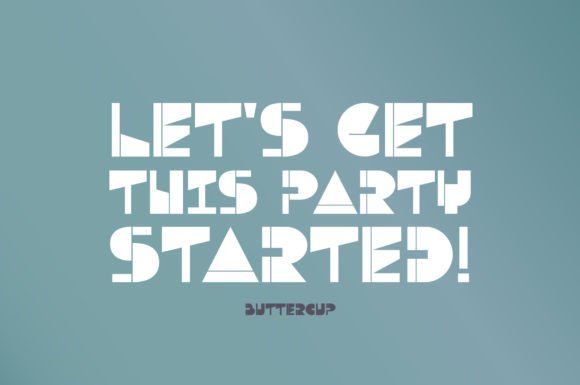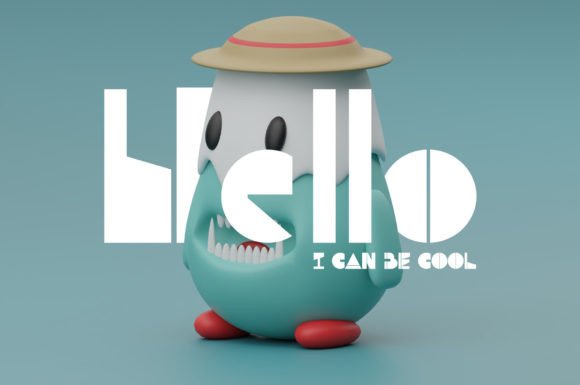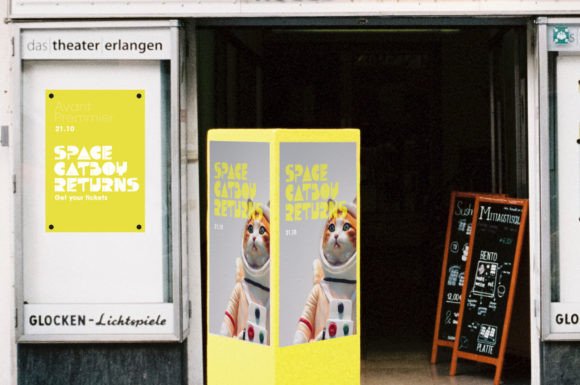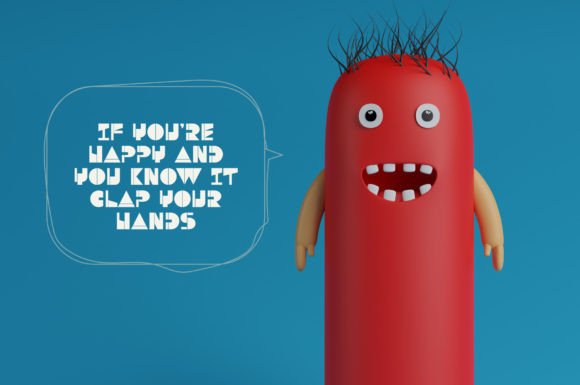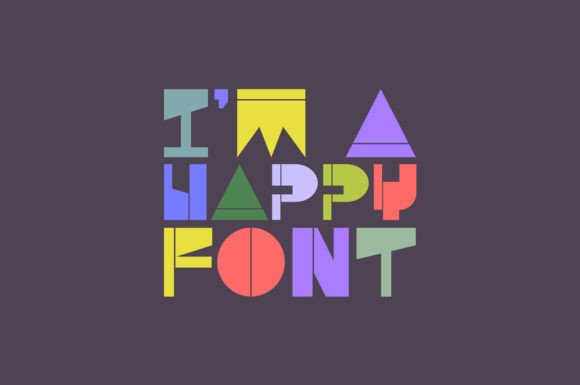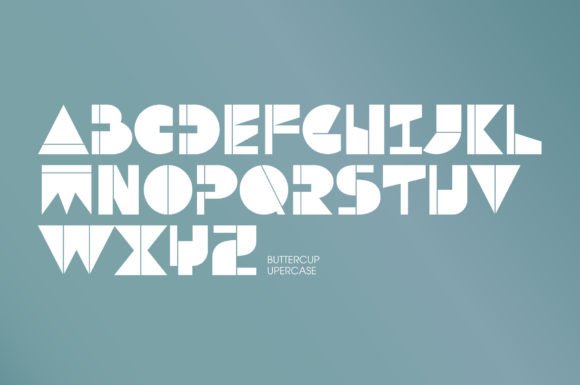
The Quest for the Perfect Fun Font: Discovering Buttercup
I’ll never forget the time I was working on a project for a children’s toy brand. I had the design concept nailed, but I was struggling to find the right font to bring it all together. The client wanted something fun, playful, and quirky, but not too over-the-top. I scoured font websites, tried out dozens of options, and still, nothing seemed quite right. That’s when I stumbled upon Buttercup, a delightful display typeface that instantly captured the whimsical spirit of the brand.
An Honest Review of Buttercup Font
What I Love About Buttercup ✨
- ✅ Fun and playful vibe: Buttercup has a bouncy, energetic feel that’s perfect for kid-related projects.
- ✅ Quirky and unique: This font stands out from the crowd, making it ideal for designs that need a bit of personality.
- ✅ Versatile: Use it for packaging, toys, logos, stickers, posters, stationery, and more.
- ✅ Easy to read: Despite its playful nature, Buttercup remains clear and legible, even at smaller sizes.
- ⚠️ Limited use cases for formal designs: Buttercup’s playful nature makes it less suitable for formal or professional projects.
- ⚠️ May not work well at very small sizes: While legible at smaller sizes, Buttercup’s quirky features may get lost or appear too condensed.
The Backstory Behind Buttercup Font
Buttercup was designed by a team of creatives who wanted to create a font that captured the magic of childhood. Inspired by vintage toys, nursery rhymes, and playful illustrations, they crafted a typeface that’s both fun and memorable. The result is a font that’s perfect for designers, crafters, and creative hobbyists looking to add a touch of whimsy to their projects.
| Font Name | Buttercup Font |
| Author | HipFonts |
Q: What type of projects is Buttercup best suited for?
A: Buttercup is perfect for kid-related projects, such as packaging, toys, logos, stickers, posters, and stationery.
Q: Is Buttercup available in different weights or styles?
A: Currently, Buttercup is available in a single weight, but it may be possible to find variations or similar fonts from the same designer or foundry.